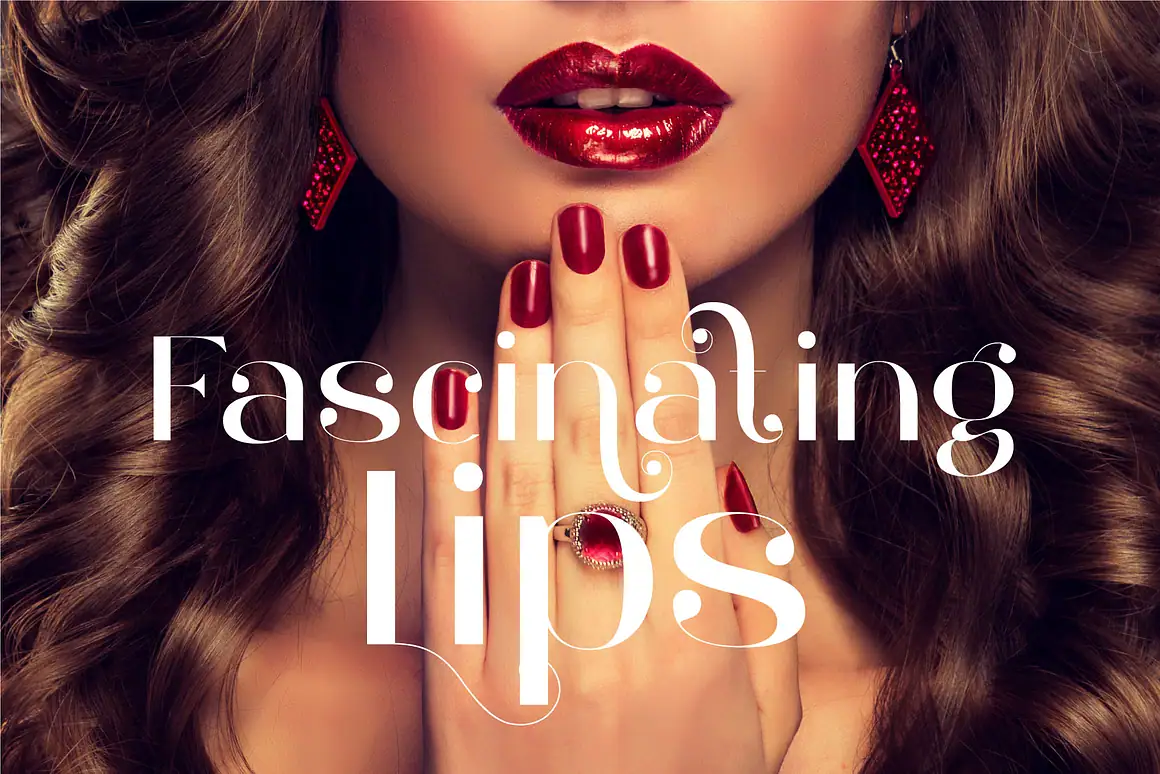
Girlas - Elegant Serif Font
Girlas
Girlas is an elegant serif font with beautiful high-contrast strokes, crafted to bring sophistication and femininity into your design projects. The refined letterforms and stylish ligatures make it a perfect choice for brands that want to combine modern elegance with timeless charm.
As a font for beauty branding, Girlas works seamlessly across skincare packaging, cosmetics, fashion labels, luxury brochures, magazines, and editorial layouts. Its graceful curves and balanced proportions give every design a polished and professional look, while the variety of ligatures and alternates add a creative, feminine touch.
Girlas elegant serif font is versatile enough to be used for logos, packaging, invitations, social media posts, and business cards. Whether you’re working on a premium beauty product, high-end fashion campaign, or stylish print design, this serif typeface enhances your brand’s identity with a sense of elegance and class.
✦ Features
- Standard glyphs uppercase and lowercase letters
- Numerals, a large range of punctuation and ligatures.
- Swashes, Stylistic Set
- Multilingual support for; ä ö ü Ä Ö Ü ß ¿¡
- Multilingual support
✨ Make your designs unforgettable with Girlas – the elegant serif font for beauty branding and feminine design concepts.